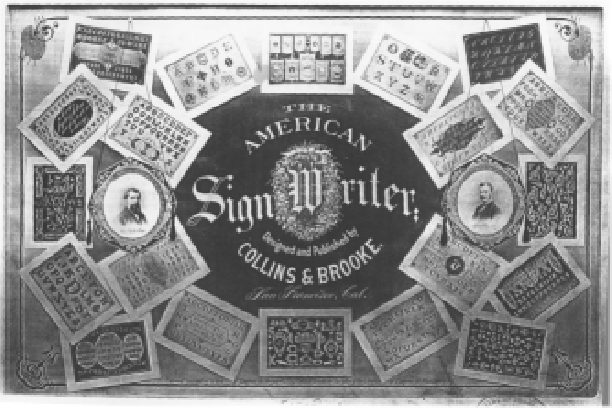
H.H.Day and signcraft
Hats off to Mike for showing off all those great sketches in last issue of Signcraft Mag. I almost missed it at the back like it was but just a terrific addition. Would love to see or hear anymore from this guys sketch book and how you came upon it.
Someone affiliated with the publishing company had the manuscripts and sketches, many years after the book could have, or would have been published. That person contacted a broker who handled the sale including making scans of quite a few of the images and pages. She then started contacting possible buyers, one of which was the American Sign Museum. Tod was interested, but he couldn't get them to supply a price. They continued contacting other people. I believe one of them was House Industries. Somehow, my name came up and the lady gave me a call and forwarded the scans through an email.
Eventually, I made a fair offer and they took it. At the same time, I contacted Tod at the museum to see if they were still interested and I offered to sell it to them for the price I paid. I made a few scans and copies and figured I could get a couple of articles out of it while still in my possession. After this initial article, I'd like to see them add a page in each SC for a while similar to what ST did with the Atkinson plates and the Becker alphabets. I could still write my other articles and that page would be a freebie, so to speak.
I have good images of all the pages now, and I considered doing a page or two this site. It'd be a shame to see them just go onto a shelf in a closed section of the library at the museum.
As I mentioned in the article, it is amazing how accurate his pencil line drawings were. Many were done on thin cardboard so it would have been almost impossible to have been tracing over a light table. There were almost no construction lines on any of them. To me, these pencil sketches are more "telling" of the man's skill than if we had been seeing the final inked or lettered plates in a book.
Mike, Have you or have you seen any of the published books that go with Mr.Day? It reminds me of the Brooks topic sometime ago. For the uninitiated Brooks was the craftsman that produced the glass sample book Rick Glawson was so proud to own. Apparently there is a book by him also and Todd had a lead on it. Smithsonian I think I heard. That was the last I heard about it other than the Brook's book wasn't as interesting as hoped.
Since the pencil is my only design tool and I don't subscribe to Signcraft, I'd surely appreciate any and all examples of the pencil sketches you could put up right here. I don't scoff at anybody who uses technology to do their design work and could do it myself if I had a mind, but I like my pencil. I'd like to see some of it.
I had the pleasure of locating the book "The American SignWriter", that Mr. Brooke had co-authored back in 1877 with Mr. Collins.
The book consists of 20 blank pages with an actual sepia tone picture adhered to each page. 20 pages, 20 photos.
The book is located in the Library of Congress, in Washington D.C.
I made black and white xerox copies of the book, but sadly, one page was missing. (the book originally has 21 pages)
It is also located in one of the Libraries of the University of Southern California, "USC". That volume supposedly has all 21 photos.
The table of contents page is a picture showing the 20 pages laid out around the edges of the photo, with the title and picture portraits of the two authors in the middle, Mr Brooke being one of them. The layout was similar to an AMAL page. Now I know where Doc gets his Ideas from!
The B&W xerox copies do it no justice...got to go back and get color copies, of those sepia toned pictures.
The contents are lettering plates, scroll plates, and panel plates.
....Unbelievable Increadible Lettering and Artwork. These guys did sepia tone photos cause I guess they realized that simple black ink on white paper would not show all the detail and shading effects of their work...Im sure they would have done color photos if they could have.
The glass plates are special...and so is the book!
The workmanship of all the plates is astounding.
In a way I consider it right up there with Atkison and Strong, if not higher. Considering the taste and styles of the era, it would be the best ever. These guys were dedicated!!!
A few years ago Jeff Lang purchased a "Collins and McGinness" business card off ebay. He let me examine it, and while doing so I noticed how it resembled the book by Collins and Brooke. It was a sepia toned picture mounted to a business card. On one side was the picture, on the other was the names and address of the business.
The picture was a snap shot of the front of the building, with all types signs and wall paintings, some sticking out windows. Down on the street below was a horse and wagon, that may have been there delivery vehicle. One of the signs stated "House and Steamboat Painting".
After a while it dawned on me that this must be the Collins of "Collins and Brooke", authors of the "The American Sign Writer". I have never seen another card or book like these.
Collins and McGinness were located in St. Louis, Missouri.
Collins and Brooke were located in San Fransico, California.
The book consists of 20 blank pages with an actual sepia tone picture adhered to each page. 20 pages, 20 photos.
The book is located in the Library of Congress, in Washington D.C.
I made black and white xerox copies of the book, but sadly, one page was missing. (the book originally has 21 pages)
It is also located in one of the Libraries of the University of Southern California, "USC". That volume supposedly has all 21 photos.
The table of contents page is a picture showing the 20 pages laid out around the edges of the photo, with the title and picture portraits of the two authors in the middle, Mr Brooke being one of them. The layout was similar to an AMAL page. Now I know where Doc gets his Ideas from!
The B&W xerox copies do it no justice...got to go back and get color copies, of those sepia toned pictures.
The contents are lettering plates, scroll plates, and panel plates.
....Unbelievable Increadible Lettering and Artwork. These guys did sepia tone photos cause I guess they realized that simple black ink on white paper would not show all the detail and shading effects of their work...Im sure they would have done color photos if they could have.
The glass plates are special...and so is the book!
The workmanship of all the plates is astounding.
In a way I consider it right up there with Atkison and Strong, if not higher. Considering the taste and styles of the era, it would be the best ever. These guys were dedicated!!!
A few years ago Jeff Lang purchased a "Collins and McGinness" business card off ebay. He let me examine it, and while doing so I noticed how it resembled the book by Collins and Brooke. It was a sepia toned picture mounted to a business card. On one side was the picture, on the other was the names and address of the business.
The picture was a snap shot of the front of the building, with all types signs and wall paintings, some sticking out windows. Down on the street below was a horse and wagon, that may have been there delivery vehicle. One of the signs stated "House and Steamboat Painting".
After a while it dawned on me that this must be the Collins of "Collins and Brooke", authors of the "The American Sign Writer". I have never seen another card or book like these.
Collins and McGinness were located in St. Louis, Missouri.
Collins and Brooke were located in San Fransico, California.
Re: H.H.Day and signcraft
Here is a photo of the contents pages from "The American Sign Writer".
If this does not post good, I will do a re-posting of this photo.
- C and B - Letterhead Pic.jpg (74.48 KiB) Viewed 18509 times
Re: H.H.Day and signcraft
That was not a good posting of the photo.
Heres another stab at it.
- C and B - Letterhead Pic 4.jpg (196.69 KiB) Viewed 18496 times
Re: H.H.Day and signcraft
Here is the print side of the Collins and McGinness business card.
I will try to post the other side next.
- C and M Card - Side 1.jpg (125.73 KiB) Viewed 18473 times
Re: H.H.Day and signcraft
Well it looks like some art-historians are doing their work here.
Makes me hungry for more knowledge. Nice.
Re: H.H.Day and signcraft
I uploaded a Black and White version of the card, when I should have uploaded the original color version instead
So to make up for my mistake...here is the original color version.
- C and M Card - Side 1 - Color.jpg (57.88 KiB) Viewed 18436 times
Re: H.H.Day and signcraft
Here is the Scan of the Sepia Picture that is on the back. Its a pic of the front of the Collins and McGinness Sign Shop.
Due to byte size limitations with the uploaded pictures to this site, its fuzzy at best. So you cant read all the signs that are in the picture. You might see the ghoust image of the guy walking on the sidewalk next to the horse and wagon. He seems to be checking out the store fronts below the sign shop.
They must have taken the picture from second or third floor of the building across the street.
Maybe someday I can post a high rez scan somewhere else on the net and provide a link to it.
Due to byte size limitations with the uploaded pictures to this site, its fuzzy at best. So you cant read all the signs that are in the picture. You might see the ghoust image of the guy walking on the sidewalk next to the horse and wagon. He seems to be checking out the store fronts below the sign shop.
They must have taken the picture from second or third floor of the building across the street.